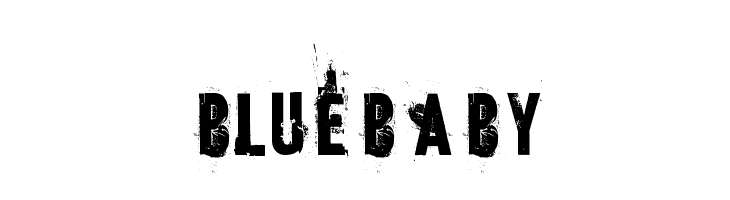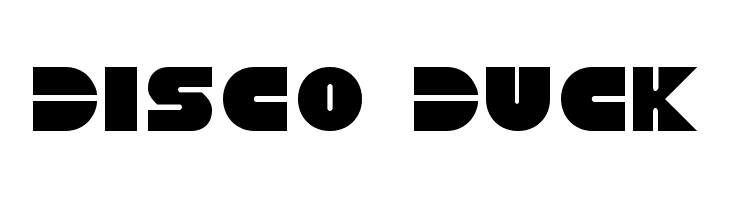
An ornate, decorative font with intricate detailing and a whimsical style.
A bold, geometric 3D font with a modern, futuristic style.
A bold, distressed font with a rugged, grunge appearance.
A decorative cartoon head illustration font with playful, expressive faces.
A dynamic, expressive handwritten font with fluid, interconnected strokes.
A playful, handwritten font with a whimsical and dynamic style.
An abstract, decorative design with swirling lines and geometric shapes.
A bold, slab serif typeface with strong, thick strokes and a modern yet classic appeal.
A playful font with characters inside coffee mugs, perfect for beverage-themed designs.
A bold, geometric font with rounded edges and a playful, modern aesthetic.
An artistic and flowing cursive font with elegant, continuous lines.
A playful, hand-drawn font with a casual and friendly style.
A modern, rounded sans-serif font with a clean and friendly appearance.
An ornate and decorative font with intricate designs for each letter.
A collection of intricate silhouette illustrations for decorative use.
A bold, italicized font with a dynamic and modern style.
A whimsical font featuring dancing skeleton characters, perfect for decorative and playful designs.
A modern, light sans-serif font with geometric influences and a clean, minimalist design.
A playful, decorative font with facial elements in each character.
Patterned circular glyphs with abstract and geometric designs.
A playful, melting-style font with bold, outlined characters on a black background.
A bold, textured font with a vintage collegiate style, ideal for impactful designs.
A silhouette-based decorative font with characters formed by human and animal figures.
A bold, hand-drawn font with a distressed texture and artistic flair.
A refined serif font with light strokes and elegant curves.
A bold, brush script font with dynamic strokes and a hand-painted look.
A playful handwritten font with a whimsical and creative style.
A whimsical and decorative font with a hand-drawn appearance.
A condensed, italicized font with a modern and dynamic style.
A bold, playful font with a hand-drawn, energetic style.
A monospaced, oblique font with a modern and dynamic style.